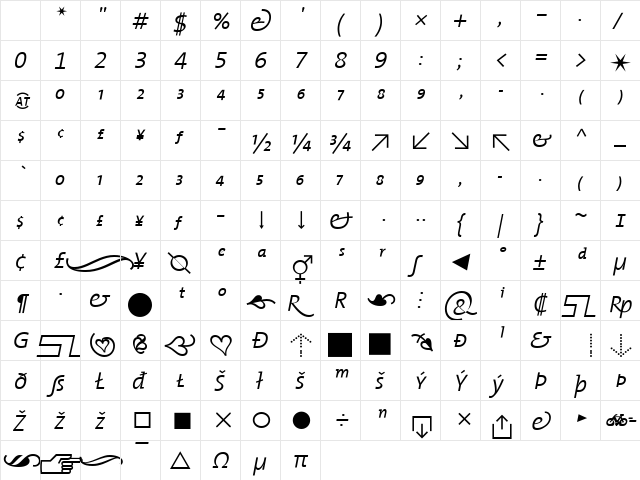
Complete TheMixSemiLight Roman Italic glyph index. Displaying only characters natively supported by TheMixSemiLight Roman Italic font.
TheMixSemiLight is a composed and adaptable typeface that performs quietly and consistently across a wide range of design contexts. The slanted form adds forward momentum and visual energy. Its slender proportions lend an understated elegance to any composition.